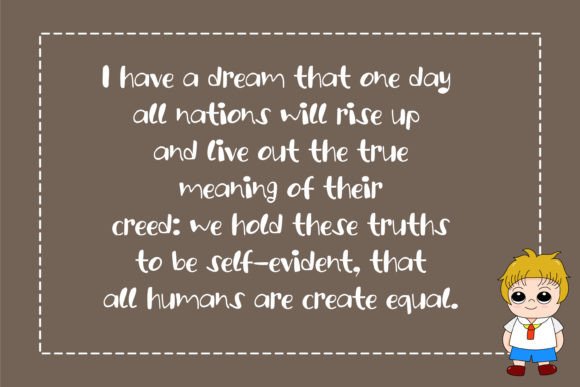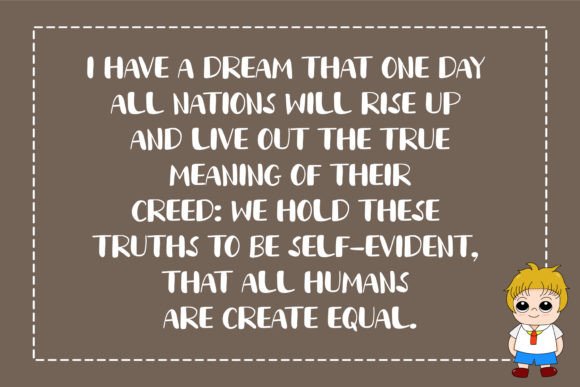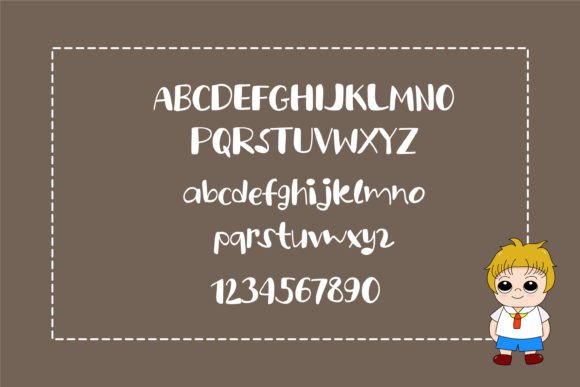
Browny Font: The Ultimate Cute Handwritten Child Font for Designers and Crafters
Are you looking for a font that can add a touch of cuteness and playfulness to your creative projects? Look no further than Browny Font, a unique and decorative child font that is sure to brighten up your designs. In this article, we’ll explore the features and benefits of Browny Font, and show you how it can be used to create stunning designs for kids-related products, printed paper stationery, digital materials, home decor, fashion, and more.
What is Browny Font?
Browny Font is a cute, jolly, and handwritten child font that is designed to add a touch of whimsy and fun to your creative works. Its unique and decorative style makes it perfect for designers and crafters who want to create eye-catching and engaging designs that appeal to kids and adults alike.
Features of Browny Font
- Cute and Playful: Browny Font is designed to be cute and playful, making it perfect for kids-related products and designs.
- Unique and Decorative: Its unique and decorative style sets it apart from other fonts, making your designs stand out from the crowd.
- Handwritten: Browny Font has a handwritten feel that gives it a personal and friendly touch.
- Trendy: The font’s modern and trendy style ensures that your designs look fresh and up-to-date.
Uses of Browny Font
Browny Font can be used for a wide range of creative design projects, including:
- Kids-related products: educational resources, cartoon-related designs, children’s games, and more.
- Printed paper stationery: tags, wrapping paper, packaging, wedding invitations, greeting cards, business cards, paper scrapbooking, posters, and more.
- Digital material: blogs, quotes, presentations, banners, posters, and more.
- Home decor: pillows, towels, napkins, pretty quotes wall art, and more.
- Fashion: t-shirts, totes, aprons, and more.
- Other DIY projects: Use Browny Font to add a personal touch to your DIY projects, such as crafts, scrapbooking, and more.
Benefits of Using Browny Font
Using Browny Font in your designs offers several benefits, including:
- Increased engagement: The font’s cute and playful style is sure to grab the attention of your audience and keep them engaged.
- Improved brand recognition: Browny Font can help you create a consistent brand image that is fun, playful, and appealing to kids and adults alike.
- Easier design process: With Browny Font, you can create stunning designs in no time, thanks to its easy-to-use and versatile style.
Tips for Using Browny Font
Here are some tips for using Browny Font in your designs:
- Experiment with colors: Browny Font looks great in a variety of colors, so don’t be afraid to experiment and find the perfect color scheme for your design.
- Mix and match: Combine Browny Font with other fonts and design elements to create a unique and eye-catching design.
- Keep it simple: Don’t overcomplicate your design – Browny Font is perfect for simple and clean designs that get your message across.